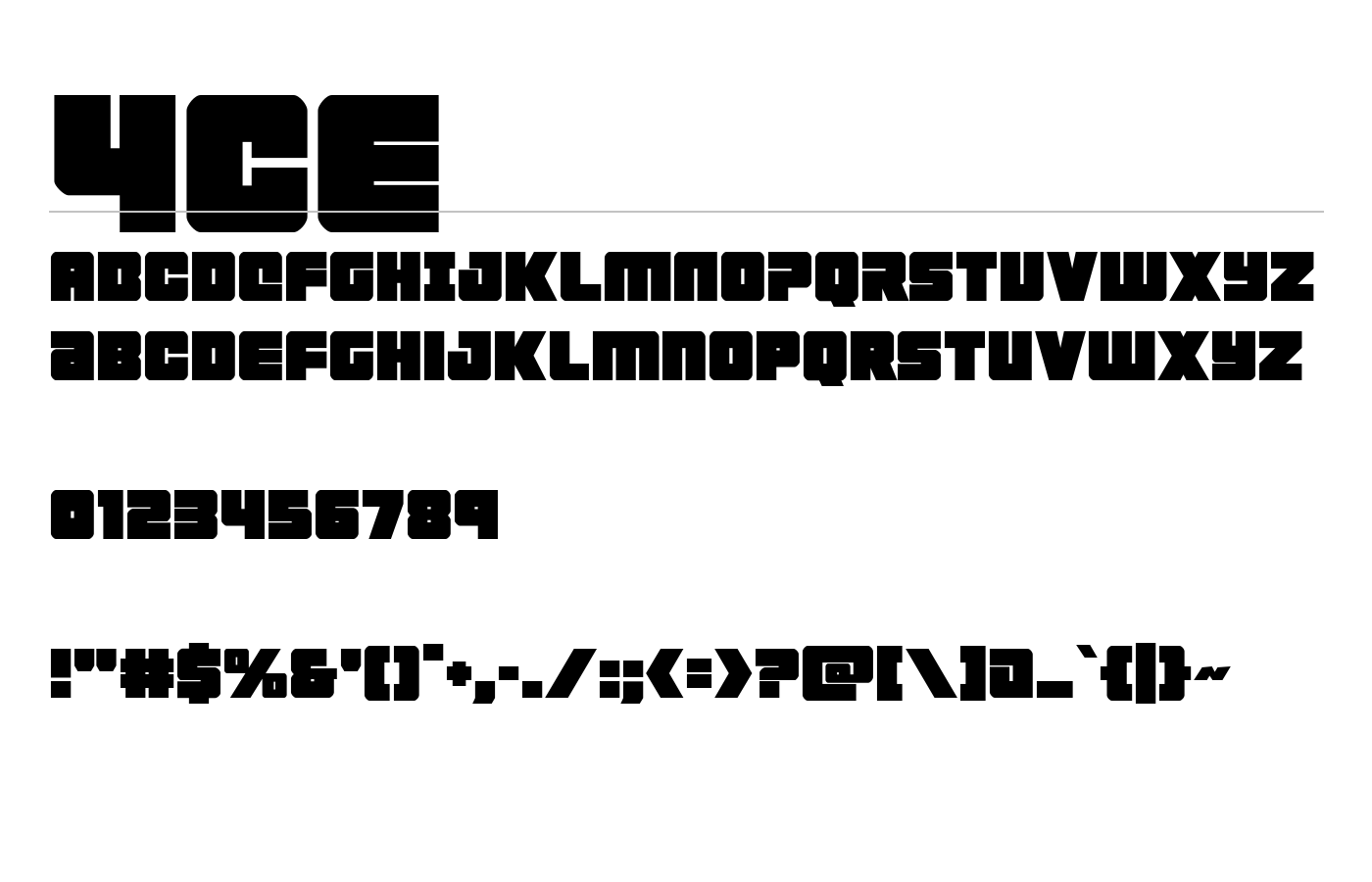
4ce Font is a bold, blocky sans serif typeface with a strong geometric style and a compact, heavy presence. Its thick, uniform strokes and squared-off edges give it a modern, industrial feel, making it ideal for eye-catching headlines, logos, and branding that demand a powerful and contemporary look. This font works best in designs where impact and boldness are key, such as posters, packaging, and digital media.
4ce Font